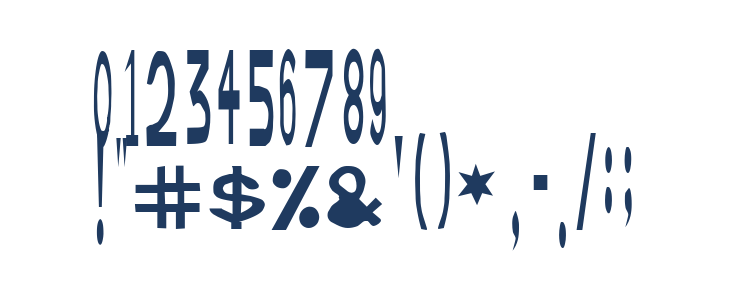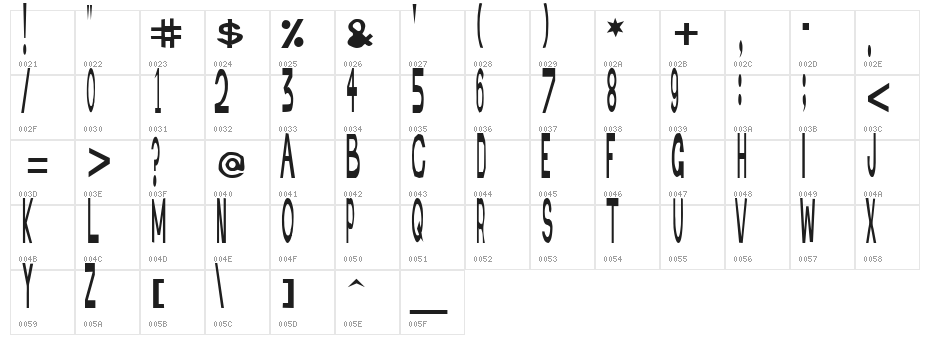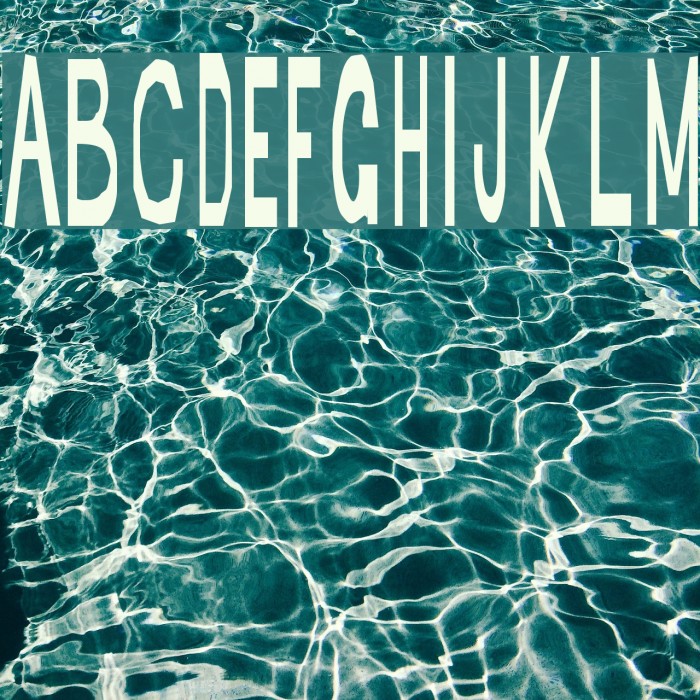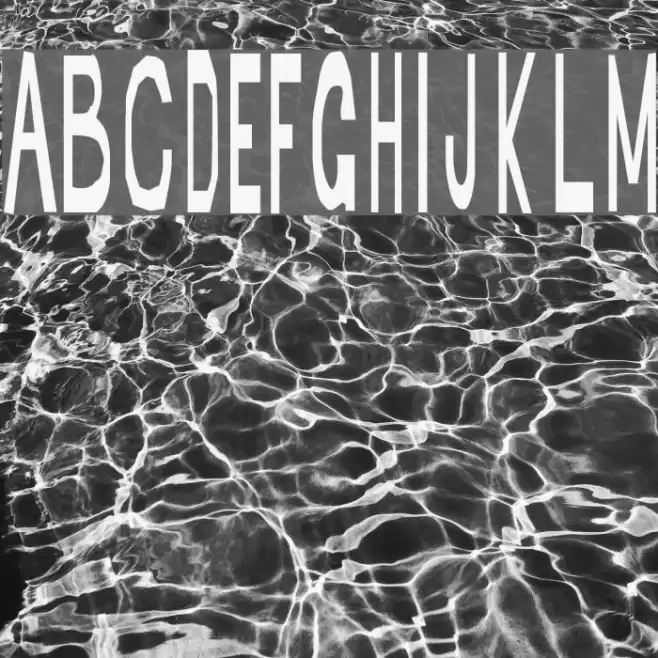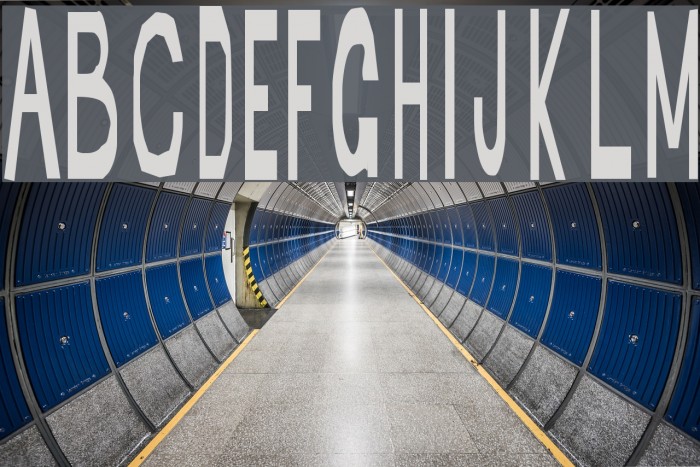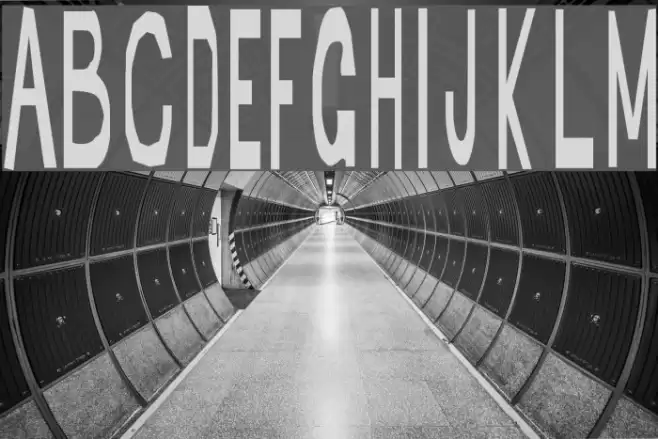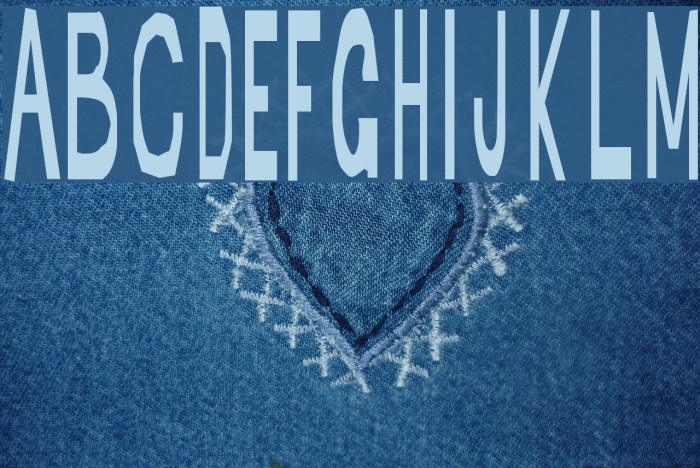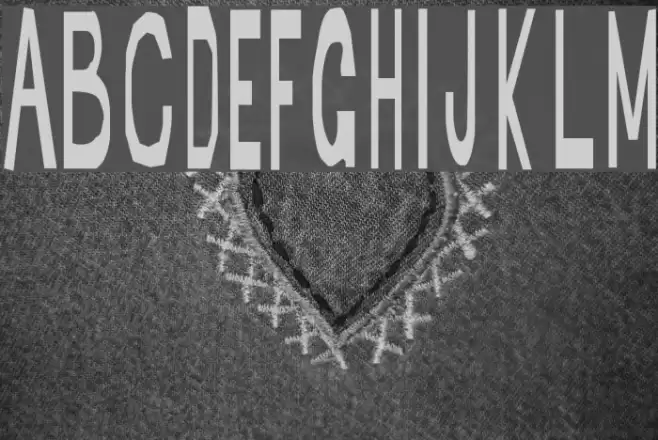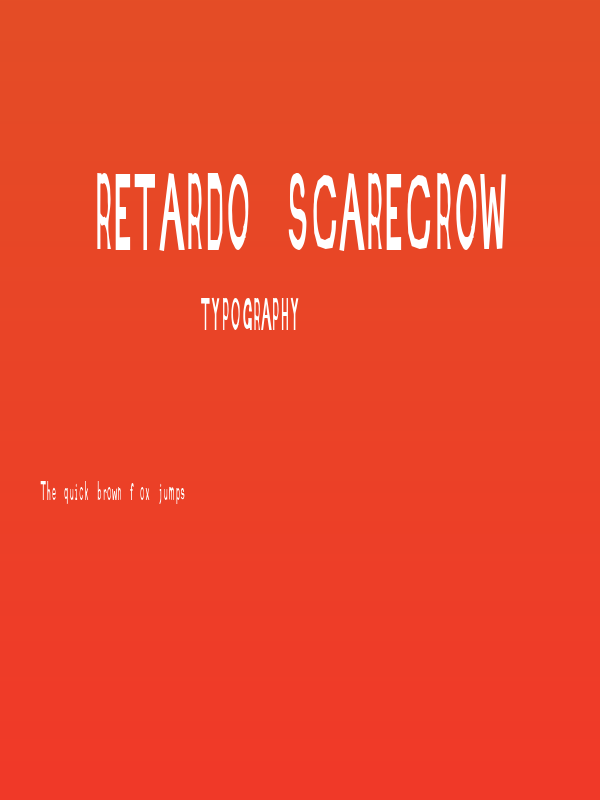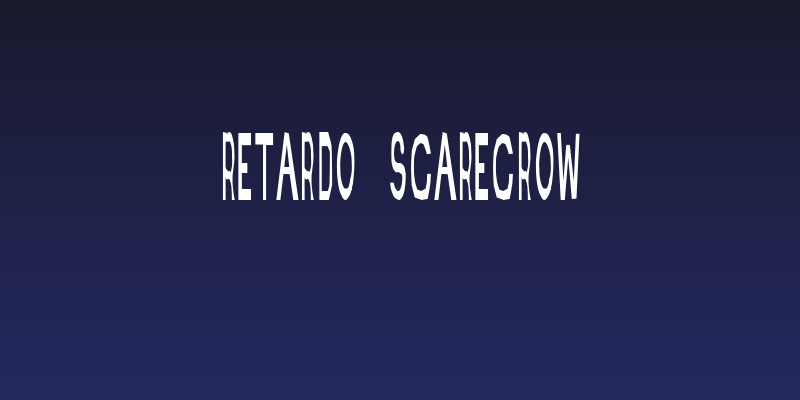
Retardo Scarecrow Font
Retardo Scarecrow Description
This font presents a highly eclectic and unconventional style, characterized by its varied letterforms that seem to be a mix of different font styles. The uppercase letters are bold and have a playful, almost chaotic arrangement, with some letters appearing larger or more elongated than others. The lowercase letters follow a similar pattern, maintaining an unpredictable and whimsical appearance. Numbers and special characters are equally varied, adding to the overall quirky and artistic feel. This font's unique design makes it stand out, offering a sense of creativity and fun.
| Use Case | Headlines, Artistic designs, Posters |
| Proposed Projects | Ideal for creative projects such as posters, album covers, or any design work that requires a bold, artistic statement. |